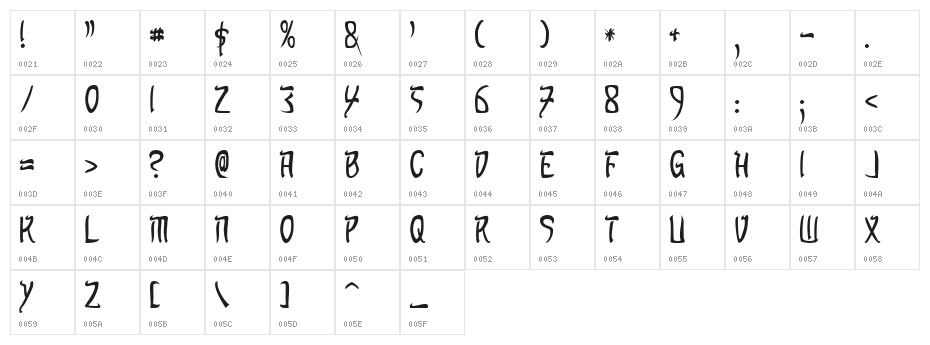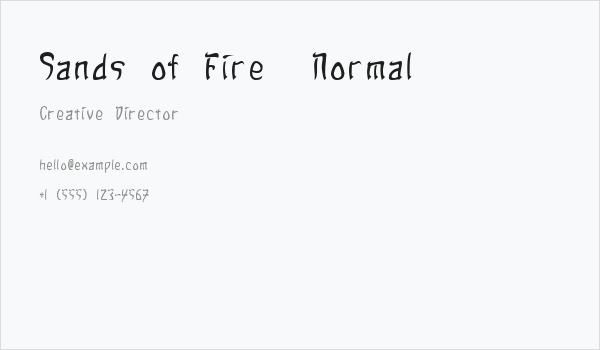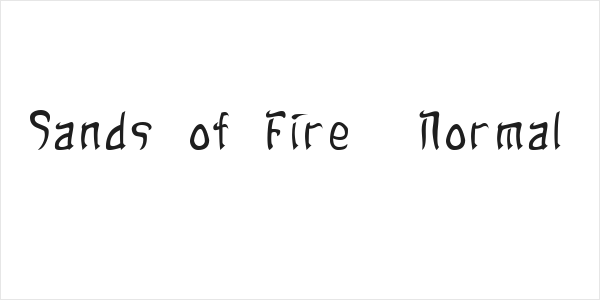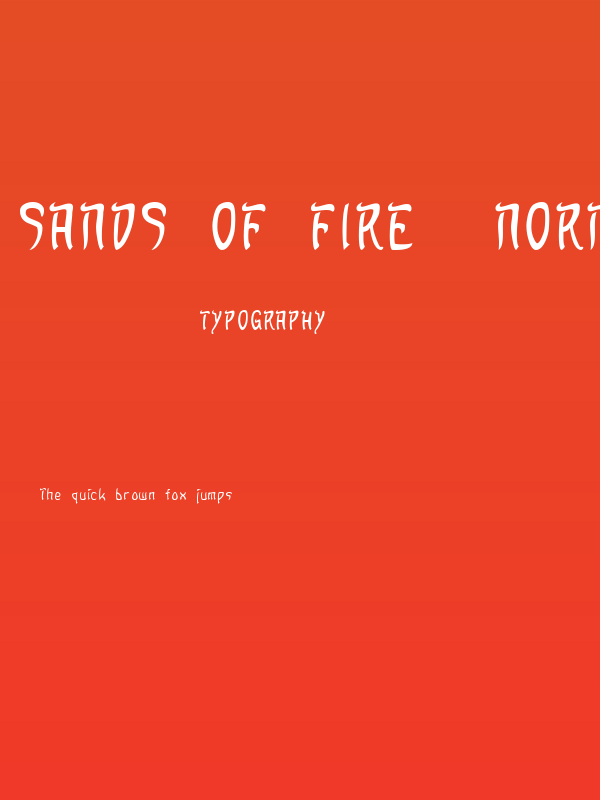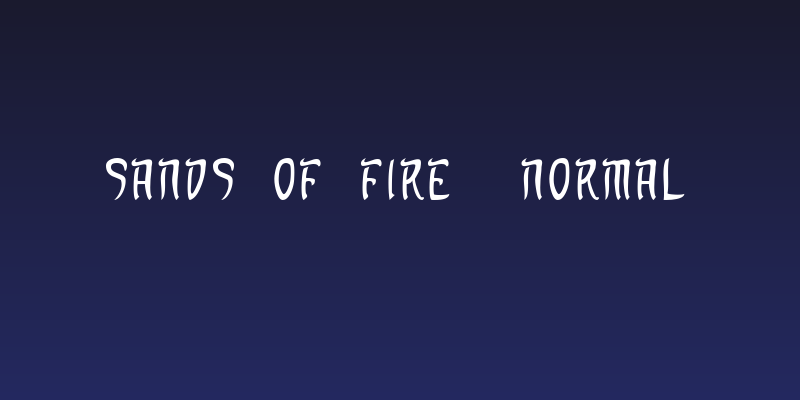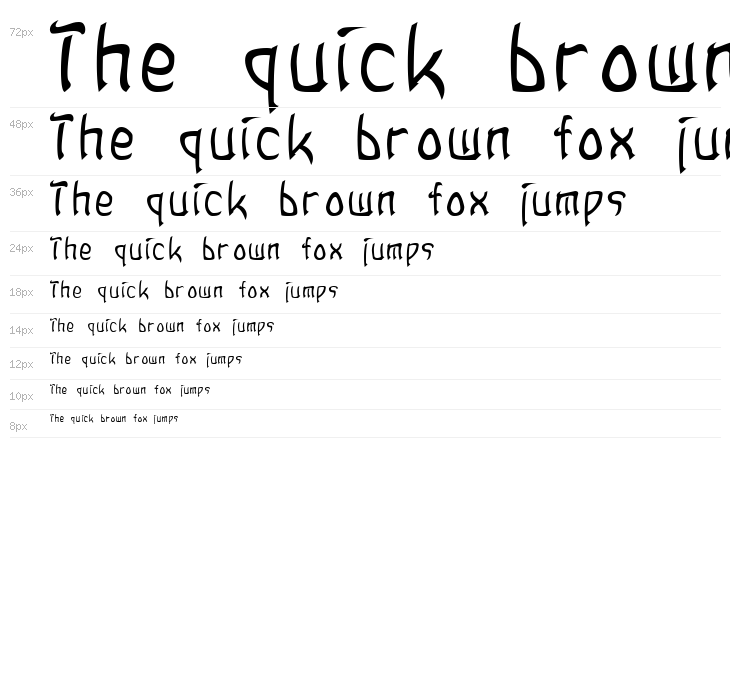
Sands of Fire Normal Font
Sands of Fire Normal Description
This font features a unique and artistic design with a hand-drawn appearance. The characters exhibit a playful yet slightly edgy style, characterized by uneven strokes and a dynamic flow. The uppercase letters are bold and prominent, while the lowercase letters maintain a consistent style with a slightly more delicate touch. Numbers and special characters follow the same artistic theme, making the font suitable for creative and expressive projects. The overall look is reminiscent of calligraphy with a modern twist, offering a distinctive and memorable visual impact.
| Proposed Projects | Ideal for creative projects such as posters, album covers, and branding materials where a unique and expressive typeface is desired. |